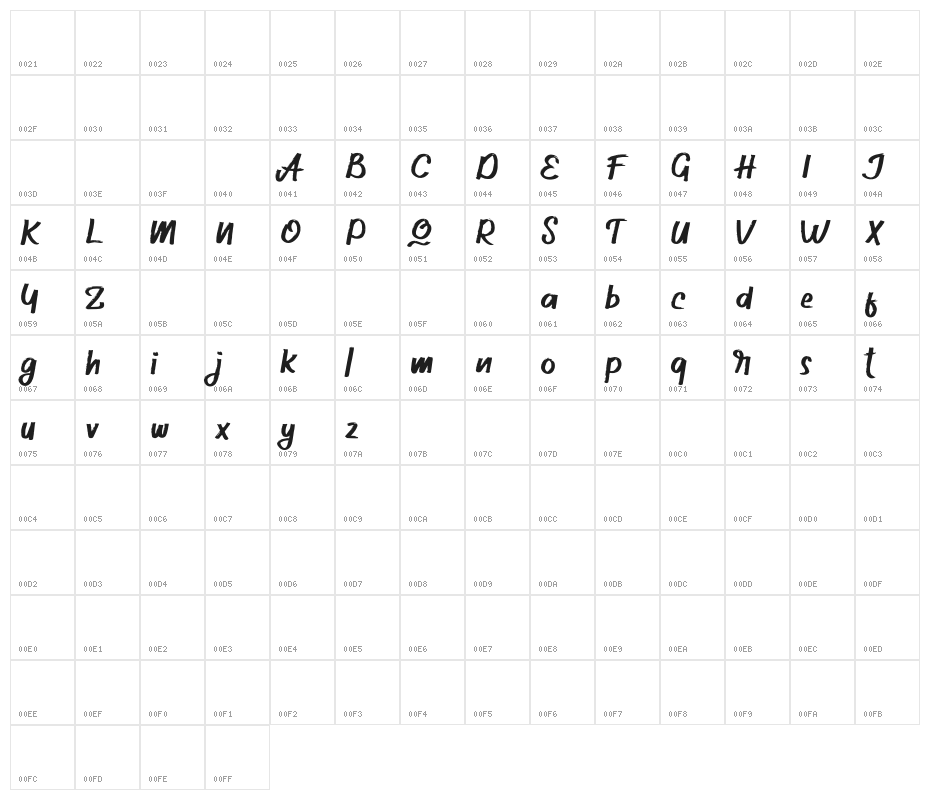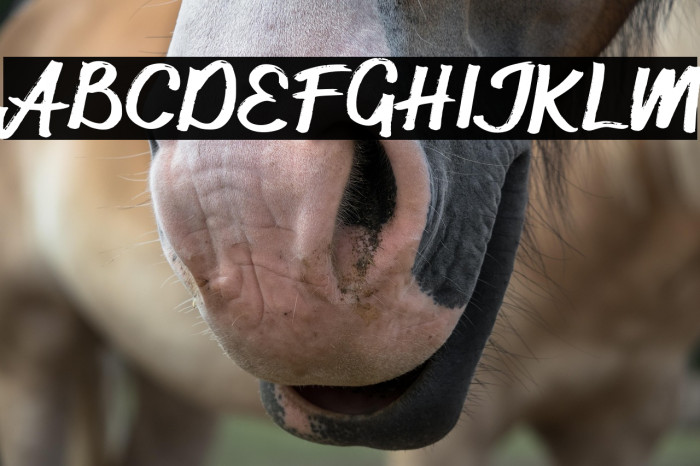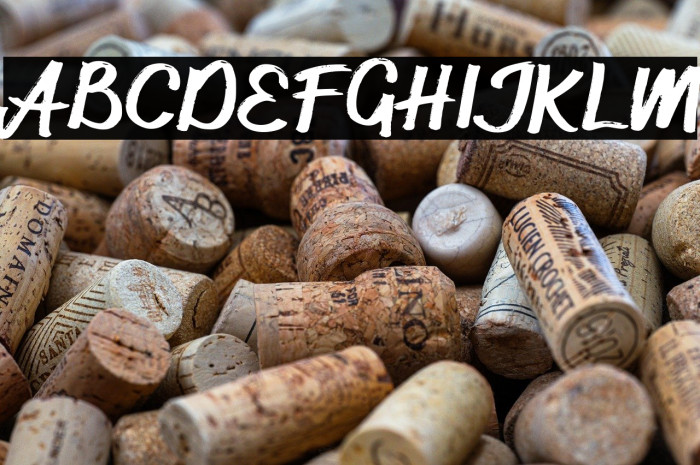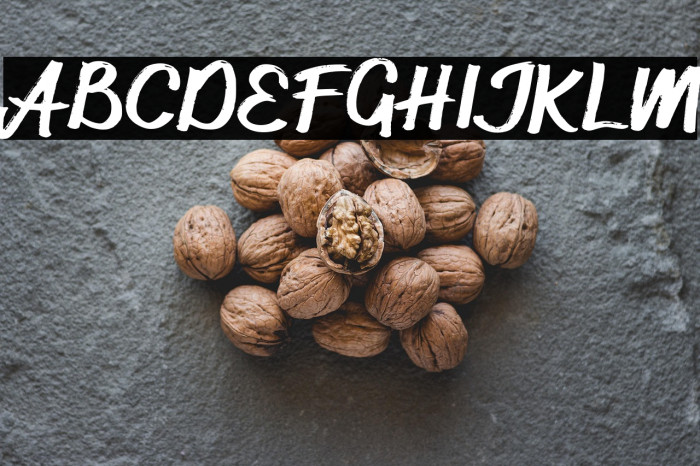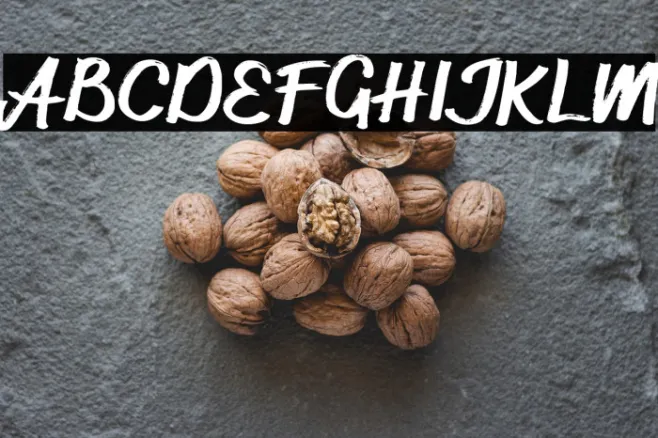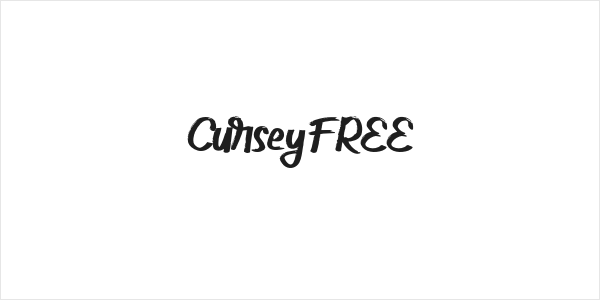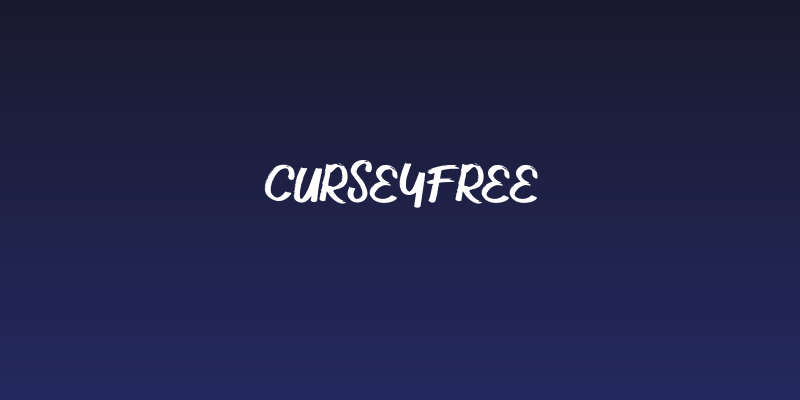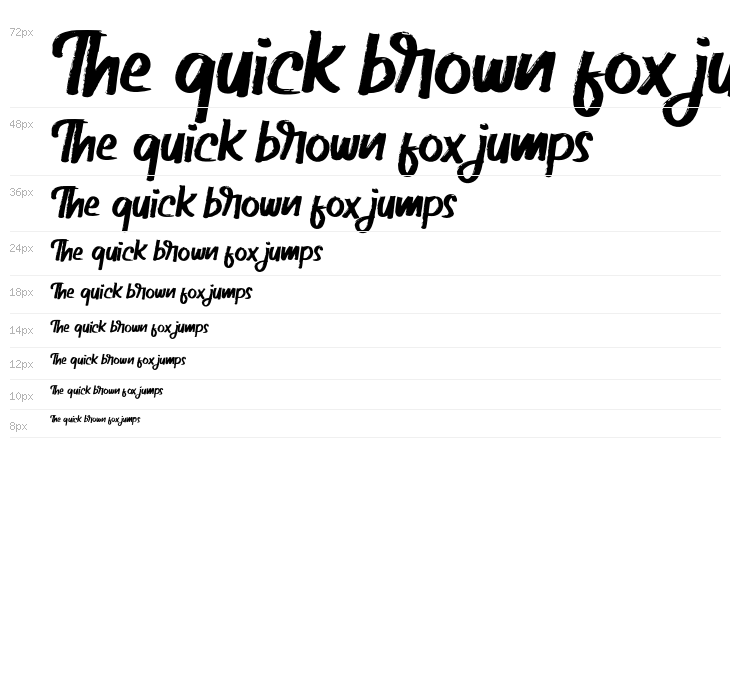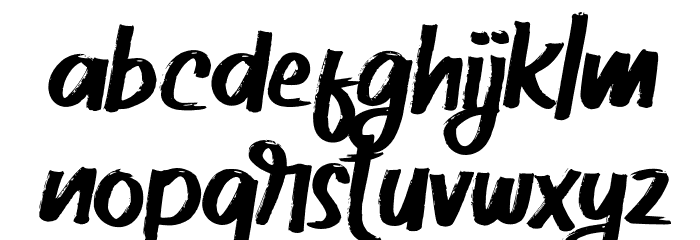
CurseyFREE Font
CurseyFREE Description
This font exhibits a bold and expressive handwritten style, characterized by its brush-like strokes and dynamic flow. The uppercase letters are particularly striking, with varying thicknesses that add a sense of movement and energy. The lowercase letters maintain this fluidity, offering a cohesive look that is both artistic and legible. The font's playful nature is enhanced by its slightly irregular shapes, giving it a personal and informal touch. It is well-suited for creative projects where a lively and engaging appearance is desired.